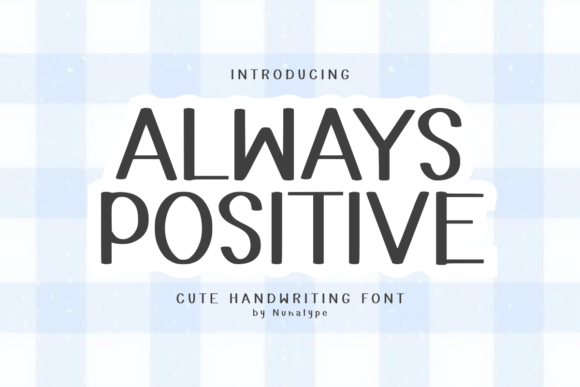
Find Your Inner Creativity with Always Positive Font
Have you ever sat down with a blank page, a cup of coffee, and a dream to create something truly special? For many of us, the blank page can be intimidating, but with the right tools, it can become a canvas for endless possibilities. That’s where Always Positive Font comes in – a delightful handwriting font designed to bring warmth and personality to your projects.
With Always Positive Font, you can add a touch of handmade charm to your craft projects, planners, and DIY designs. Its soft, friendly look is perfect for crafting moms, educators, and anyone who loves to create with a personal touch. Whether you’re making quotes, greeting cards, or kids’ labels, this font is sure to bring a smile to your face and make your projects stand out.
As a designer, you know the value of a font that can elevate your work and connect with your audience. Always Positive Font is a valuable addition to your toolkit, offering a unique and engaging way to express yourself and bring joy to those who see your creations.
Always Positive Font Key Features
- Font Family: Always Positive is a unique, custom-designed font family, making it ideal for those seeking a distinctive and uplifting visual identity.
- Font Size: The font family includes a range of weights, from Thin (100) to Extra Bold (800), allowing for versatility in typography and layout design.
- Unique Characteristics: This font features a distinctive, curved shape with a subtle smile-like design element, conveying a positive and uplifting tone.
Always Positive Font Review
I’ve had the chance to work with the Always Positive Font, and I must say, it’s a unique addition to any design project. ✨ One of the things that works well is its versatility. It’s a perfect fit for headings, titles, and even body text. The font’s optimistic vibe makes it ideal for projects that need a boost of positivity.
The font’s range of weights and styles also makes it easy to use in various contexts. ✨ From light to bold, it can adapt to any design requirement. Additionally, the font’s clean and modern design ensures readability, making it a great choice for digital and print materials.
While the Always Positive Font is a great choice, there are some limitations to consider. ⚠️ One of the main concerns is its limited range of languages supported. This might make it less suitable for projects that require a wide range of language support.
Another limitation is the font’s lack of a ‘condensed’ style. This can make it less ideal for projects that require a more compact font. ⚠️ However, this is a minor drawback in an otherwise great font.
The Always Positive Font is a great addition to any design library. Its versatility, clean design, and optimistic vibe make it a perfect choice for projects that need a boost of positivity. While it has some limitations, these can be easily worked around with careful planning.
Recommendation
I would recommend the Always Positive Font for projects that require a modern, optimistic, and readable font. It’s perfect for digital and print materials, and its range of weights and styles make it easy to use in various contexts.
- Perfect for headings, titles, and body text
- Range of weights and styles
- Clean and modern design
- Optimistic vibe
- Perfect for digital and print materials
To get the most out of Always Positive Font, use it for headings and titles to create a sense of optimism and energy.
Pair it with bold colors and contrasting backgrounds to create a visually appealing design.
Always Positive Font is perfect for:
- Marketing materials, such as brochures and flyers.
- Website headers and titles.
- Social media graphics and ads.